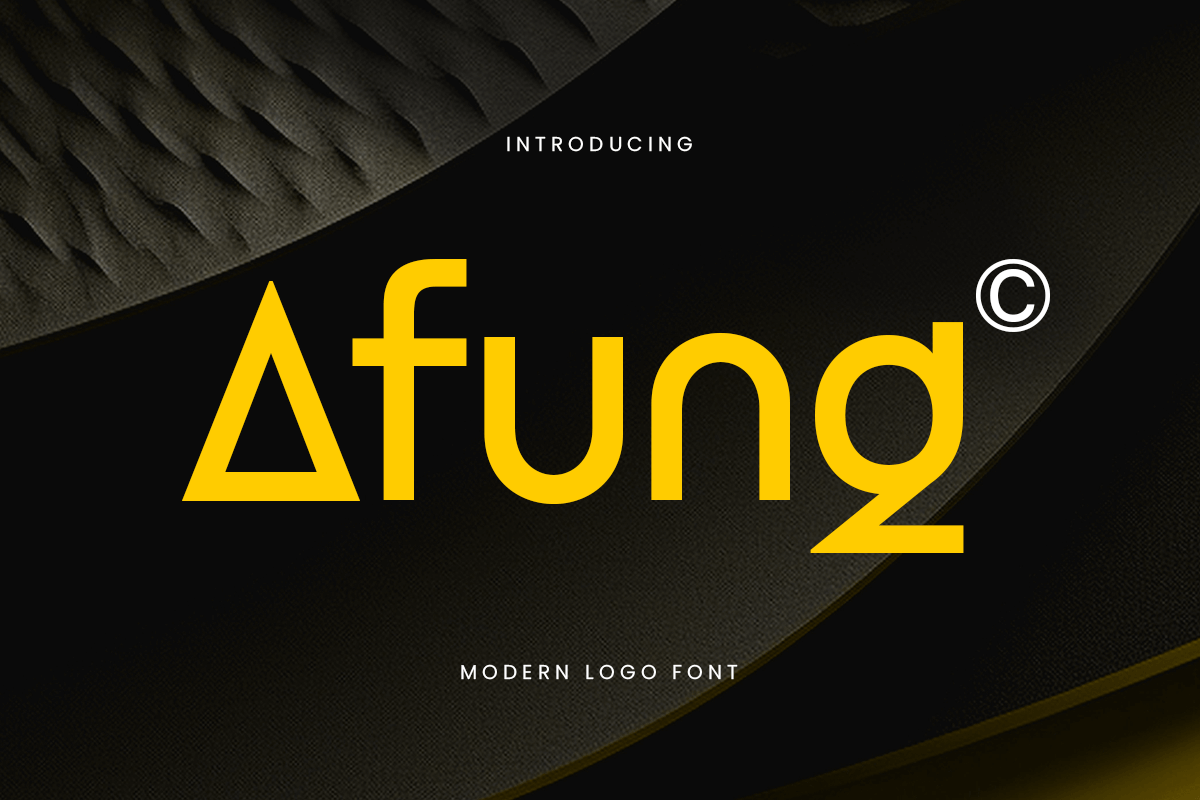
Afung
-Modern Logo FontAfung - Modern Logo Font
Afung is a contemporary sans-serif font with strong geometric shapes and clean lines, perfect for logos, branding, UI design, and minimalist packaging. Its simplicity gives it great versatility while maintaining a distinct and modern personality—ideal for tech startups, lifestyle brands, digital agencies, and fashion labels.
With a balanced structure and subtle uniqueness in each character, Afung helps your brand stand out in a professional, stylish way. Whether for print or screen, this font delivers clarity and character for impactful visual communication.
Let Afung be your go-to choice for modern, bold, and sophisticated logo typography.
Afung Modern Logo Font Features:
Bold, Clean Sans-Serif Style
Perfect for Logos, Branding, UI, and Packaging
Punctuation, Numbers, and Symbols